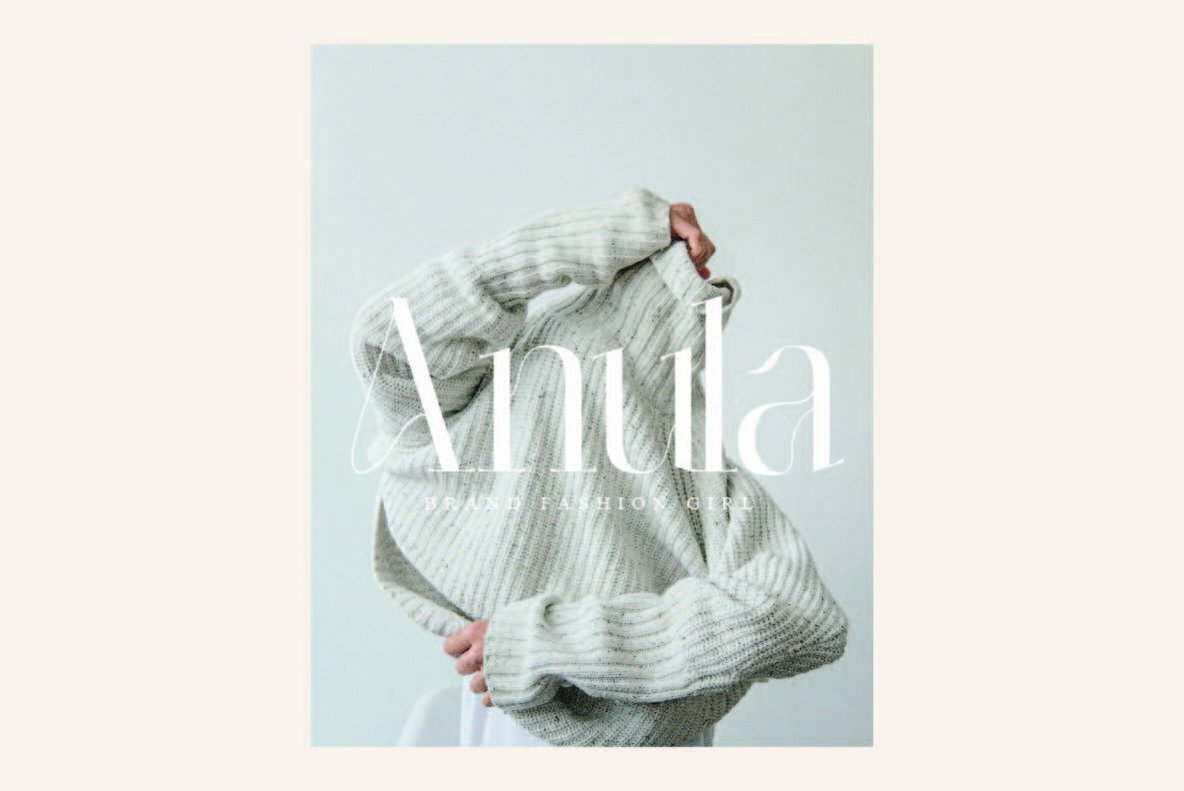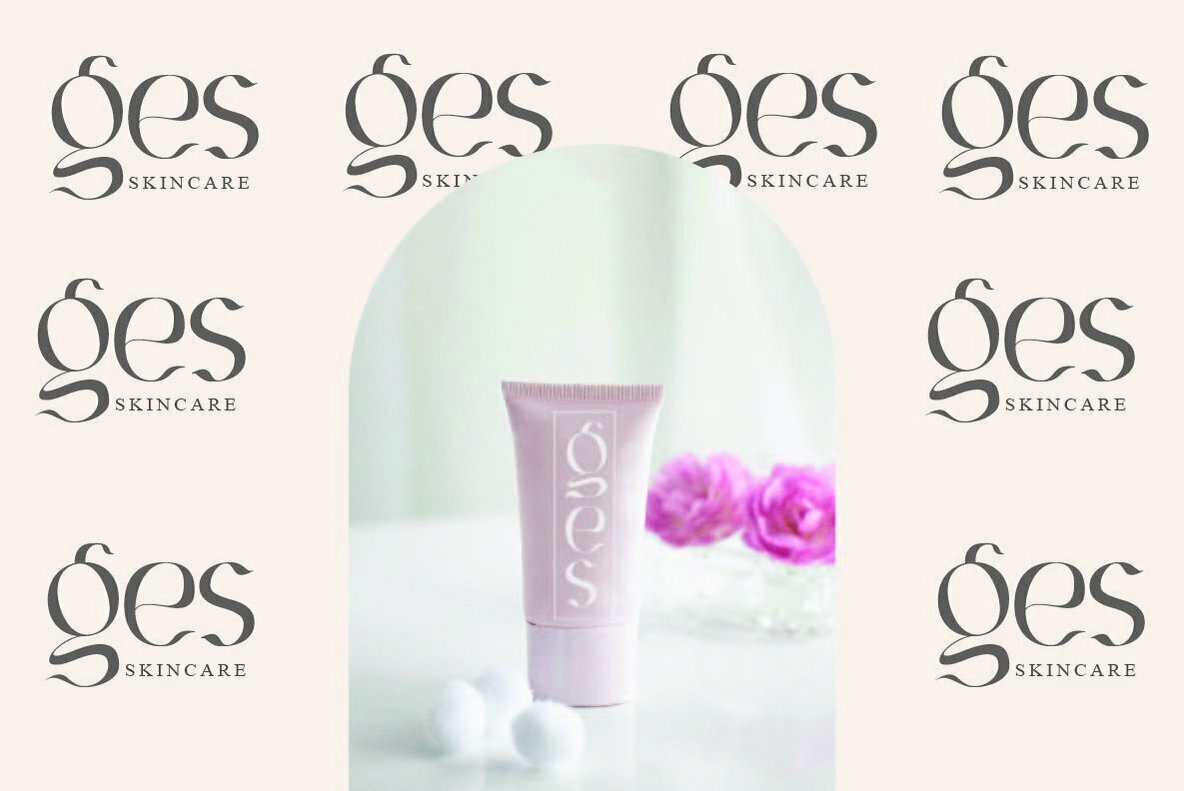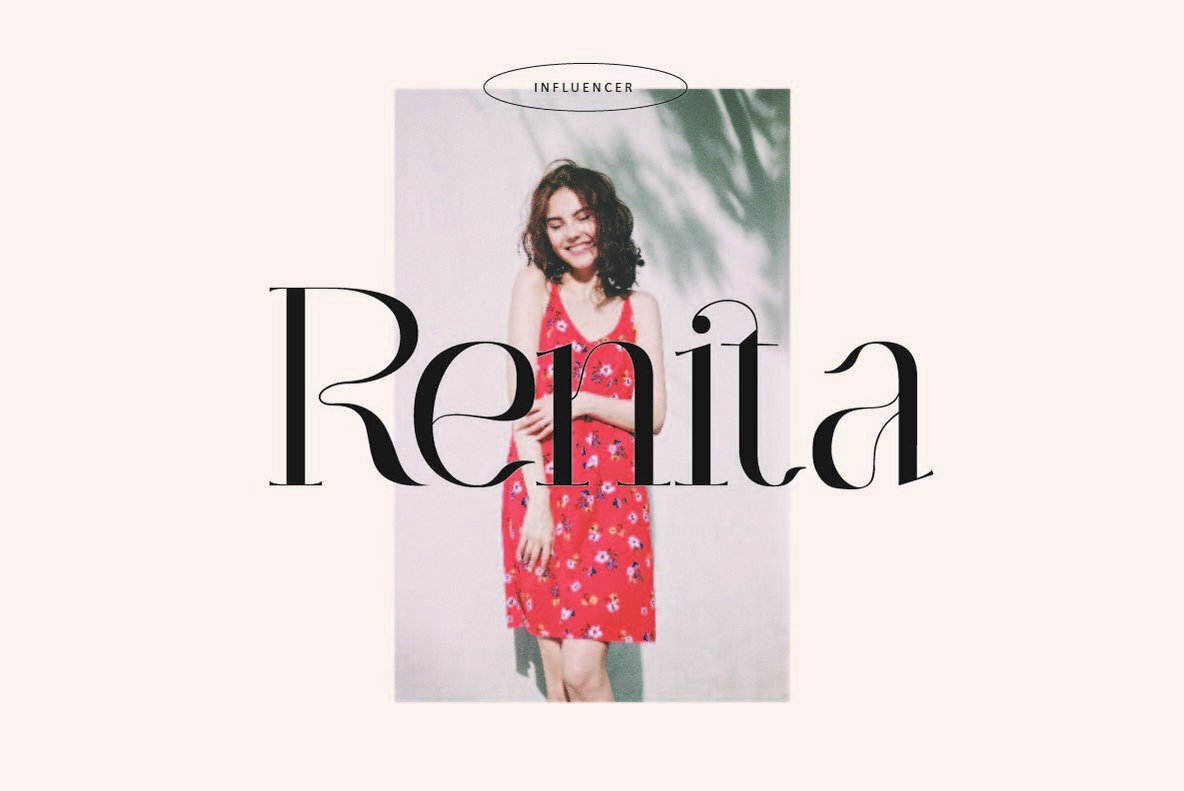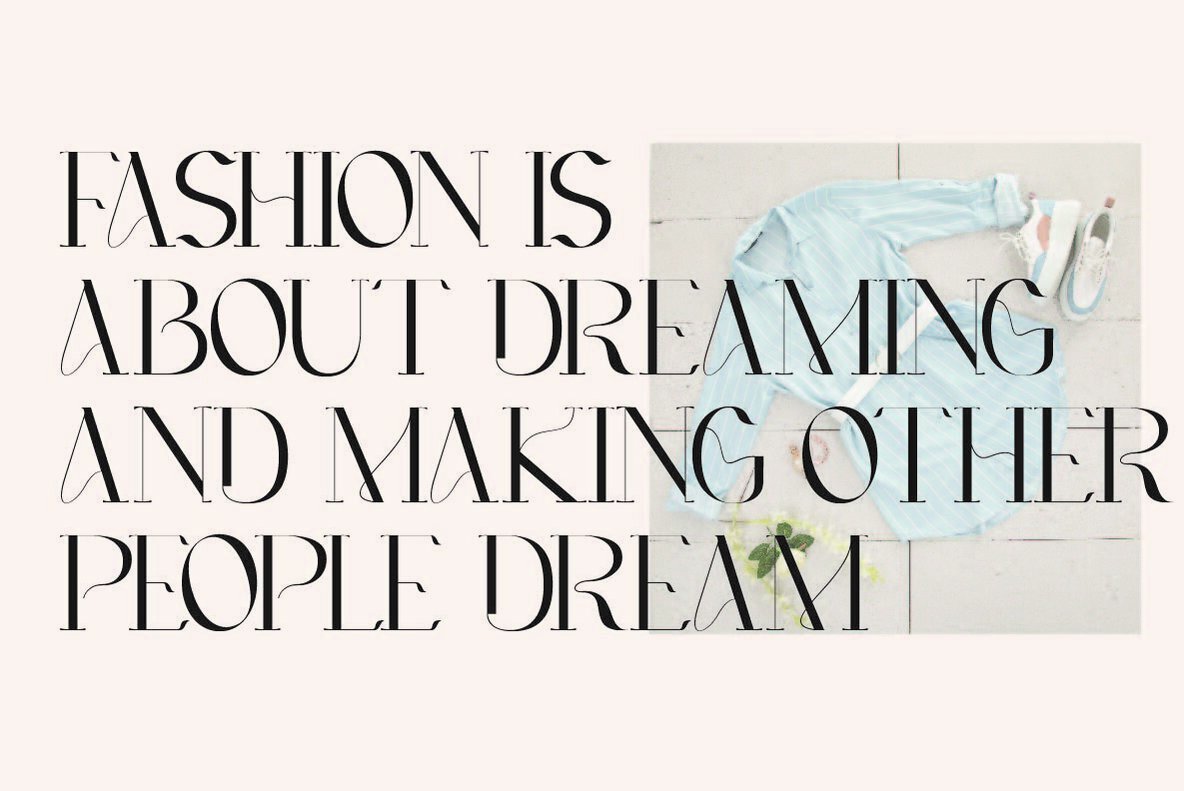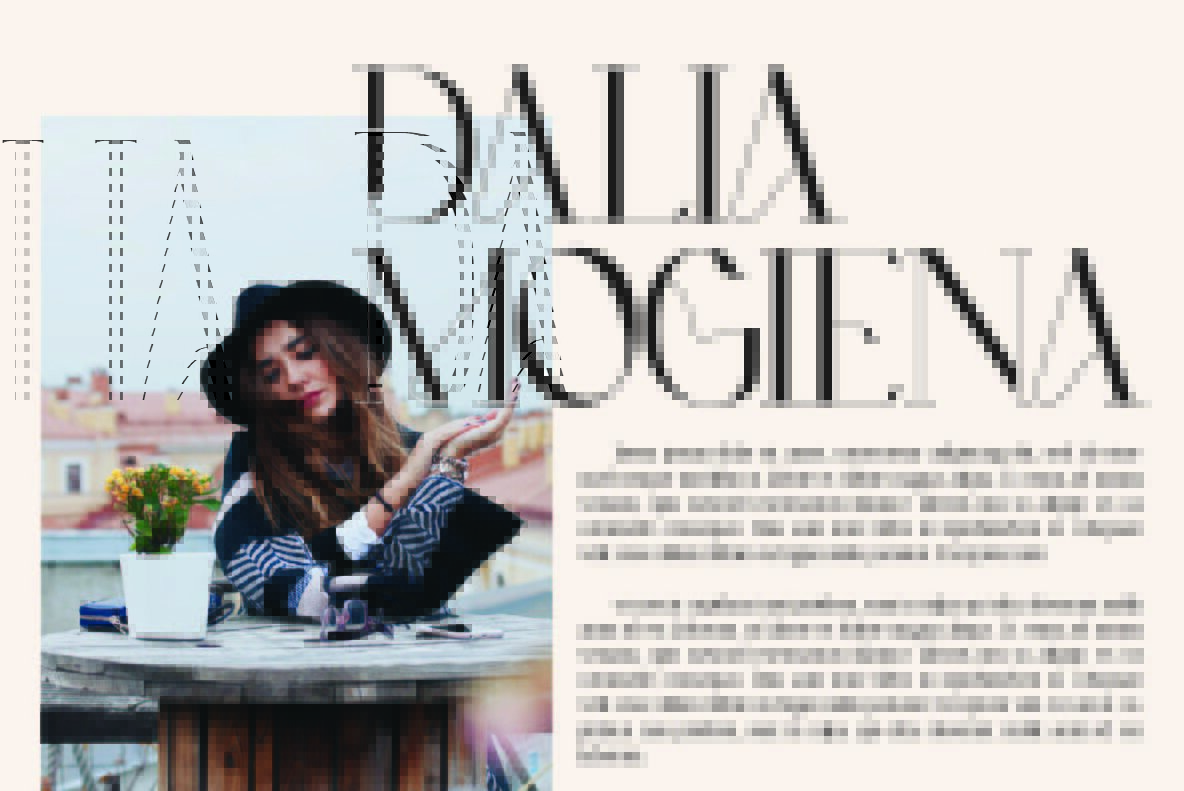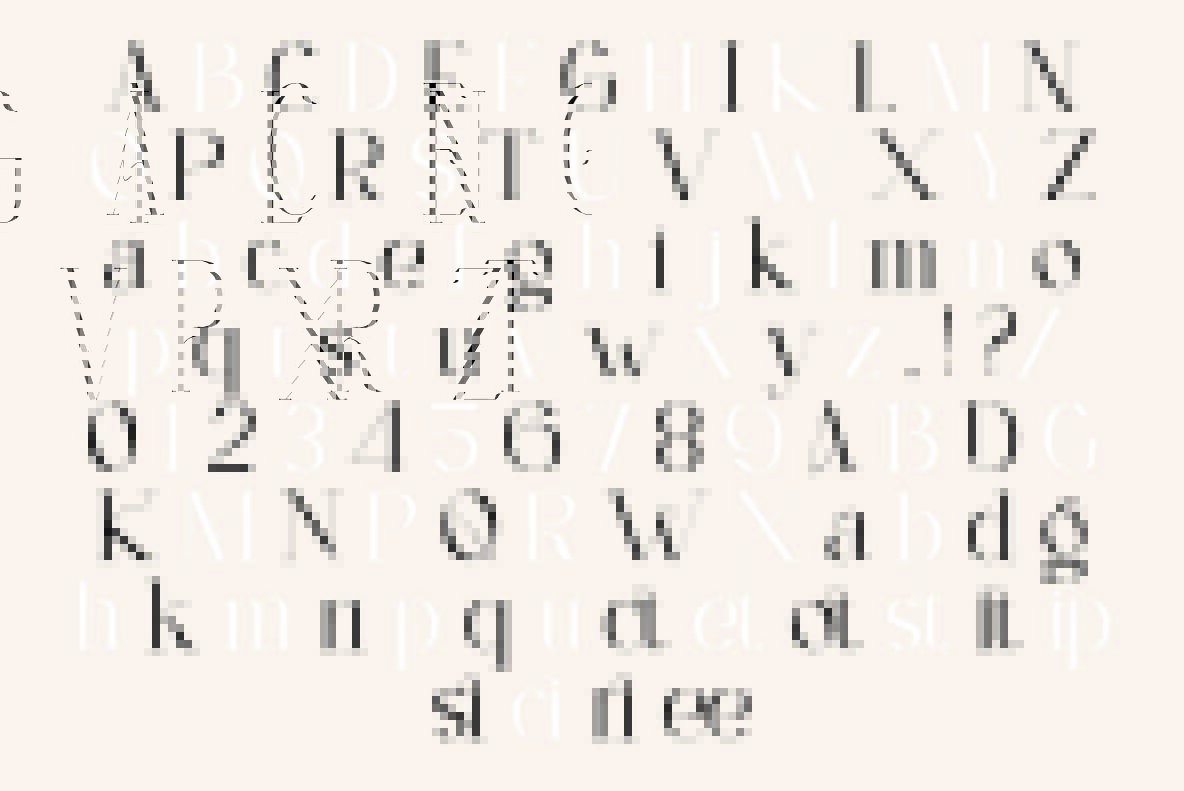
Garetc Font
Garetc Regular
Camilen is a modern serif font that is perfect for all of your design needs. It comes with beautiful alternate glyphs, ornaments and multilingual support so you can use this versatile typeface in any project!
- Lowercase and Uppercase
- Ligature and Alternate
- Numerals & Punctuation
- Accented characters
- Multiple Languages Supported